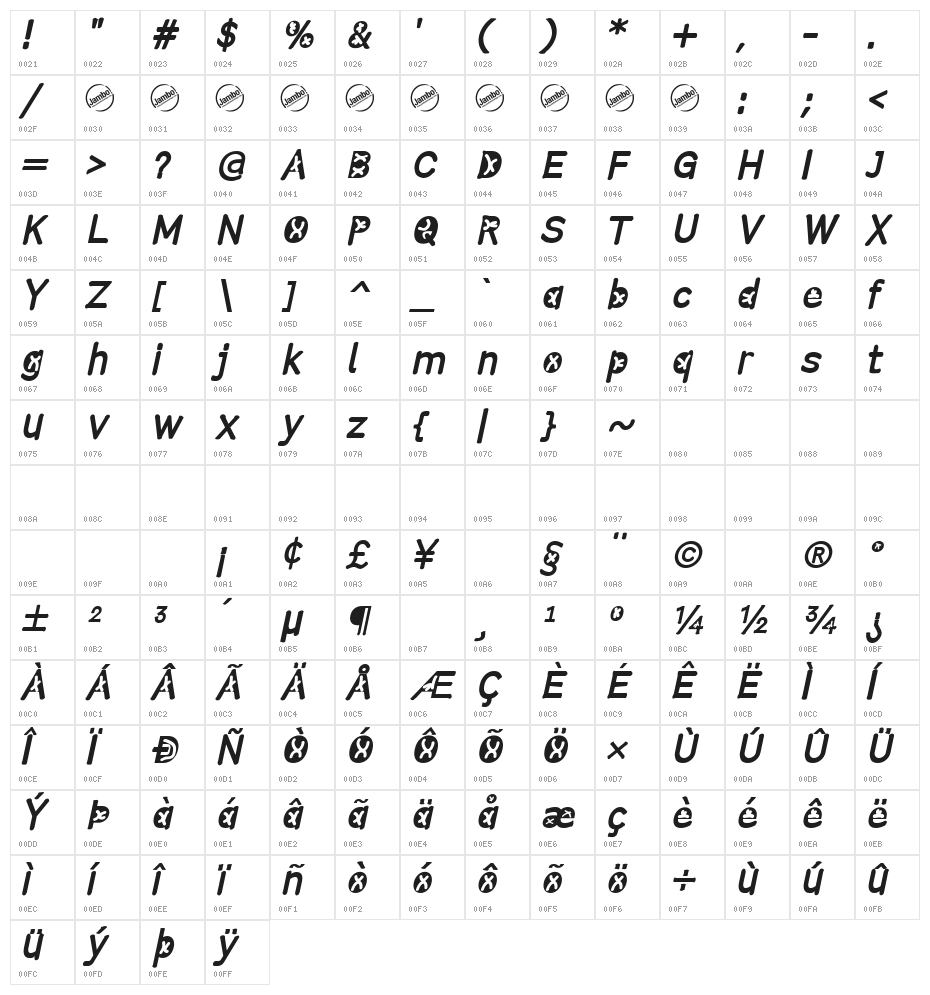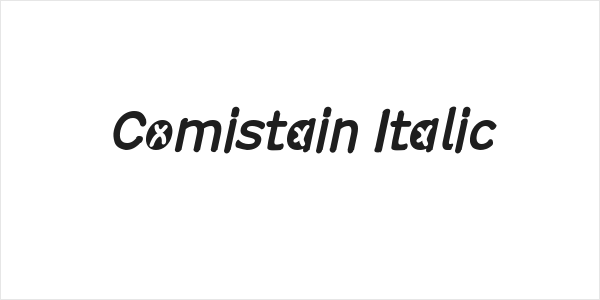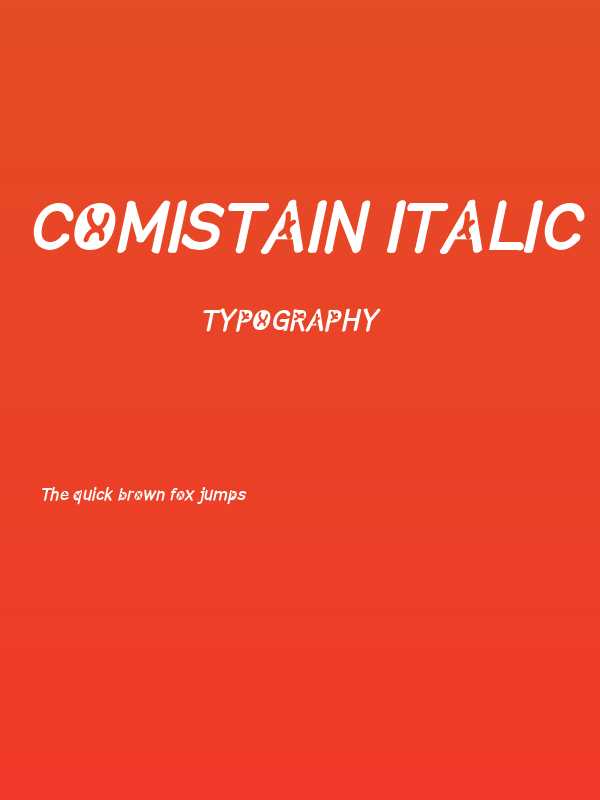
Comistain Italic Font
Comistain Italic Description
This font features a playful and dynamic style with a distinct italic slant, giving it a sense of movement and energy. The characters are bold and rounded, with unique cut-out shapes within the letters that add a whimsical touch. The uppercase and lowercase letters maintain a consistent design, while the numbers and special characters integrate seamlessly with the overall aesthetic. The font's boldness and decorative elements make it stand out, making it suitable for creative and eye-catching designs.
| Overall Style | Playful, Modern |
| Proposed Projects | Ideal for children's books, playful branding, event posters, and creative packaging designs. |